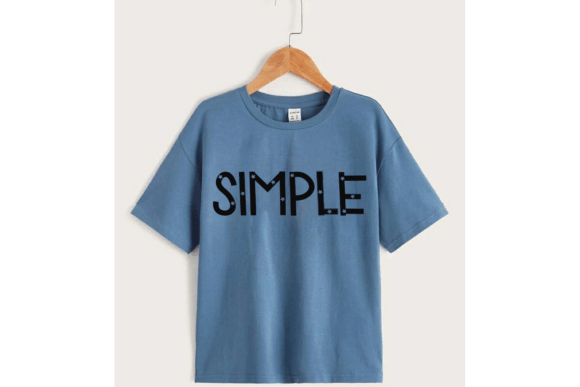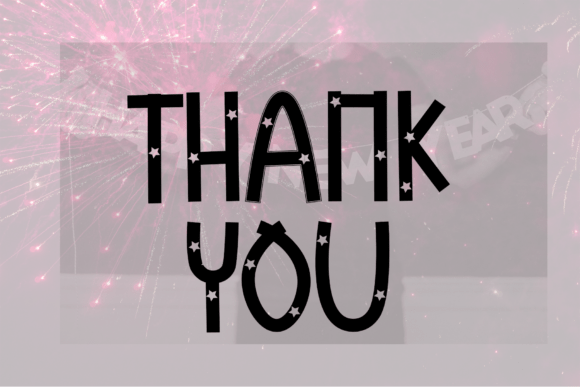
Happy Newyear Font: Add a Festive Touch to Your Designs
As the clock strikes midnight on New Year’s Eve, the world comes alive with celebration and excitement. What better way to capture the spirit of this joyous occasion than with a font that’s as festive and fun as the holiday itself? Introducing Happy Newyear Font, a bold and playful display font designed to add a burst of excitement to any design.
What Makes Happy Newyear Font So Special?
Happy Newyear Font is more than just a font – it’s an experience. With its bold, playful letterforms and charming star accents, this font is the perfect way to add a touch of celebration to your designs. Whether you’re creating party invitations, holiday greeting cards, event posters, or social media posts, Happy Newyear Font brings a lively and modern style that’s sure to capture the attention of your audience.
Perfect for Any Joyful Occasion
While Happy Newyear Font is perfect for New Year’s Eve celebrations, its versatility makes it suitable for any joyful occasion. Birthdays, weddings, baby showers, and graduations – this font adds a cheerful and sparkling touch to any design. Imagine creating a stunning party invitation with Happy Newyear Font as the centerpiece. The bold and playful letterforms will surely get your guests excited for the celebration!
Key Features of Happy Newyear Font
- Bold and Playful Letterforms: Happy Newyear Font features bold and playful letterforms that are sure to make a statement in any design.
- Charming Star Accents: The font’s charming star accents add a touch of magic and wonder to your designs.
- Lively and Modern Style: Happy Newyear Font has a lively and modern style that’s perfect for creating eye-catching designs.
- Multipurpose: This font is suitable for a wide range of designs, from party invitations to social media posts.
How to Use Happy Newyear Font in Your Designs
Using Happy Newyear Font in your designs is easy. Here are a few ideas to get you started:
- Party Invitations: Create stunning party invitations with Happy Newyear Font as the centerpiece.
- Holiday Greeting Cards: Add a personal touch to your holiday greeting cards with this festive font.
- Event Posters: Create eye-catching event posters with Happy Newyear Font and make your event stand out.
- Social Media Posts: Add a burst of excitement to your social media posts with this bold and playful font.
Here are a few tips for designers and crafters looking to get the most out of Happy Newyear Font:
- Experiment with Colors: Try pairing Happy Newyear Font with bright and bold colors to create a stunning design.
- Mix and Match Fonts: Combine Happy Newyear Font with other fonts to create a unique and eye-catching design.
- Play with Star Accents: Use the charming star accents to add a touch of magic to your designs.
Happy Newyear Font is a festive and fun display font that’s perfect for adding a burst of excitement to any design. With its bold, playful letterforms and charming star accents, this font is sure to capture the spirit of celebration. Whether you’re a designer or crafter, Happy Newyear Font is a great addition to your font collection. So why wait? Download Happy Newyear Font today and start creating stunning designs that will leave a lasting impression!